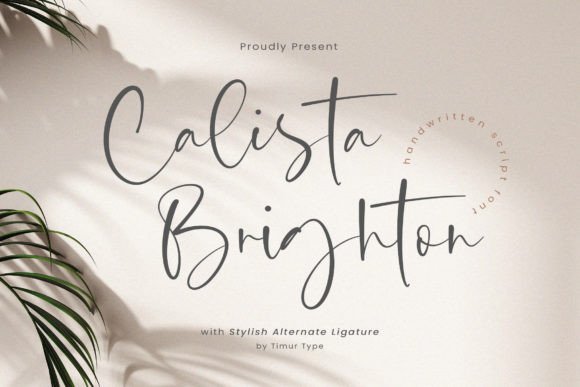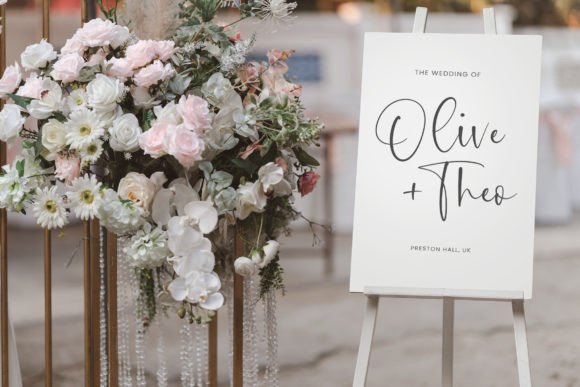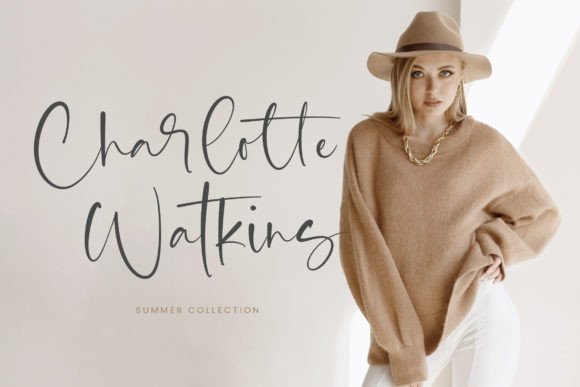
Calista Brighton Font
About the Calista Brighton Font
The Calista Brighton Font is here to transform your projects with its distinctive character and style. Calista Brighton is a dazzling script font. This font is neatly crafted and highly detailed. Whatever the topic, this font will be a wonderful asset to your font library, as it has the potential to enhance any creation.
Calista Brighton’s elegant and detailed script lends itself beautifully to projects requiring a touch of sophistication. It excels in headlines, logos, short invitations, and packaging where its ornate details can shine. Avoid using it for body text or large blocks of text; its intricate nature makes for difficult reading at smaller sizes.
Its refined personality pairs well with clean sans-serif fonts like Montserrat or Lato for a contemporary contrast, or with a classic serif like Garamond or Playfair Display for a more traditional feel. A simple geometric sans-serif could also provide a strong counterpoint, enhancing Calista Brighton’s decorative qualities.
The font exudes a sophisticated and slightly formal air, making it ideal for branding projects aimed at a discerning audience, high-end products, or events needing an air of refined luxury.
Calista Brighton Font Usage Examples
Calista Brighton Font Example